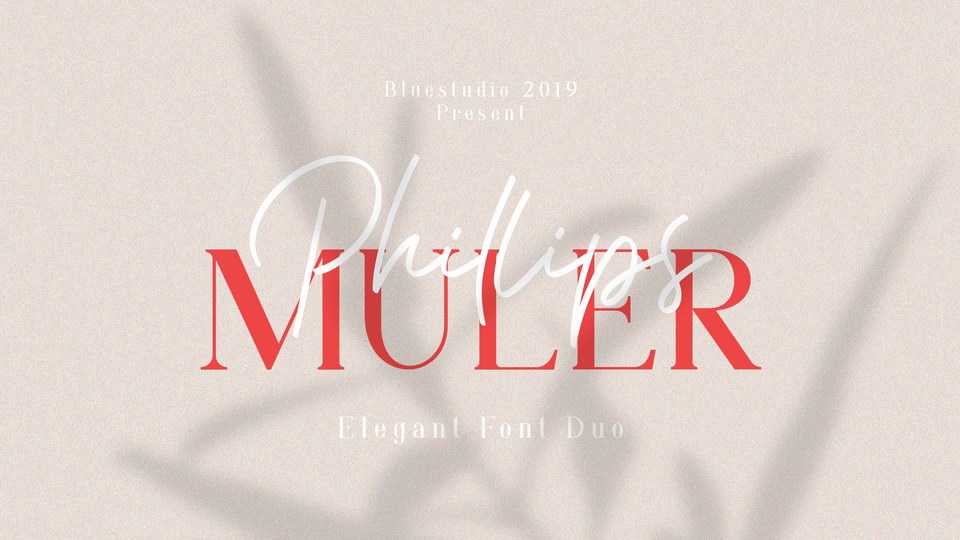
Download Phillips Muler Script, a stylish handwritten font in a signature style. Phillips Muler is perfect for all types of your business projects such as: logo design, business cards, greeting cards, magazines, newspapers, social media design, watermarks and more.
Designer: Bluestudio